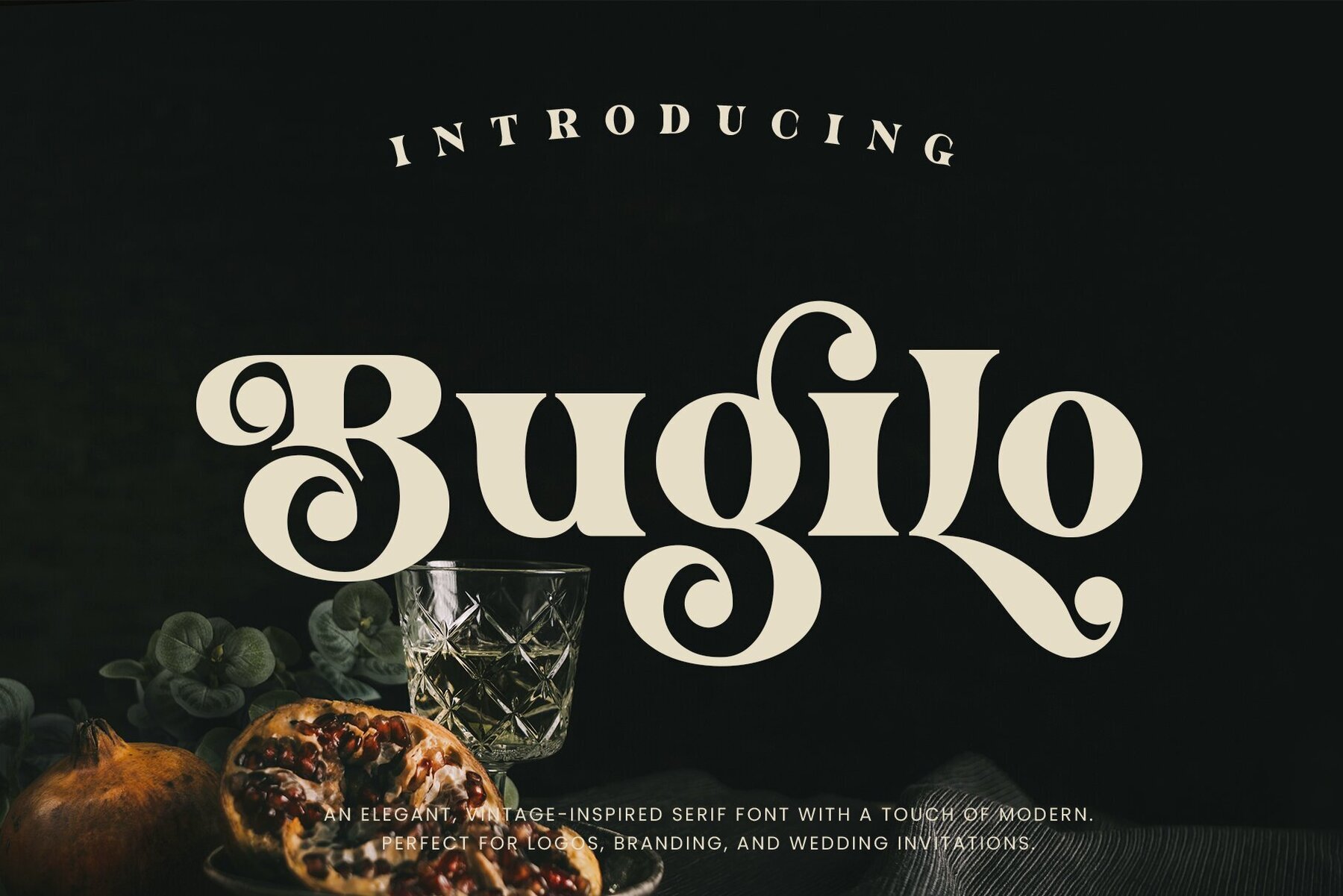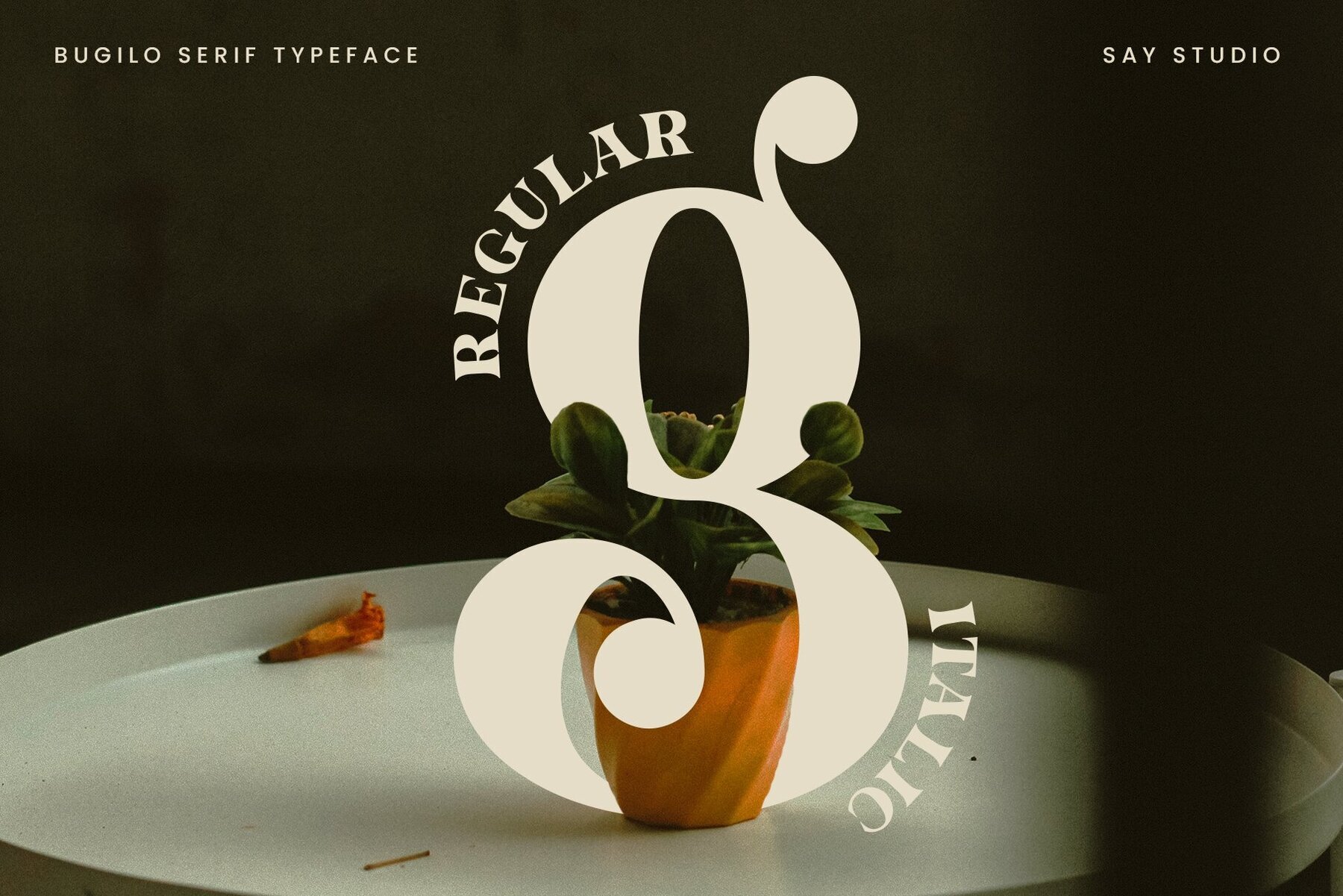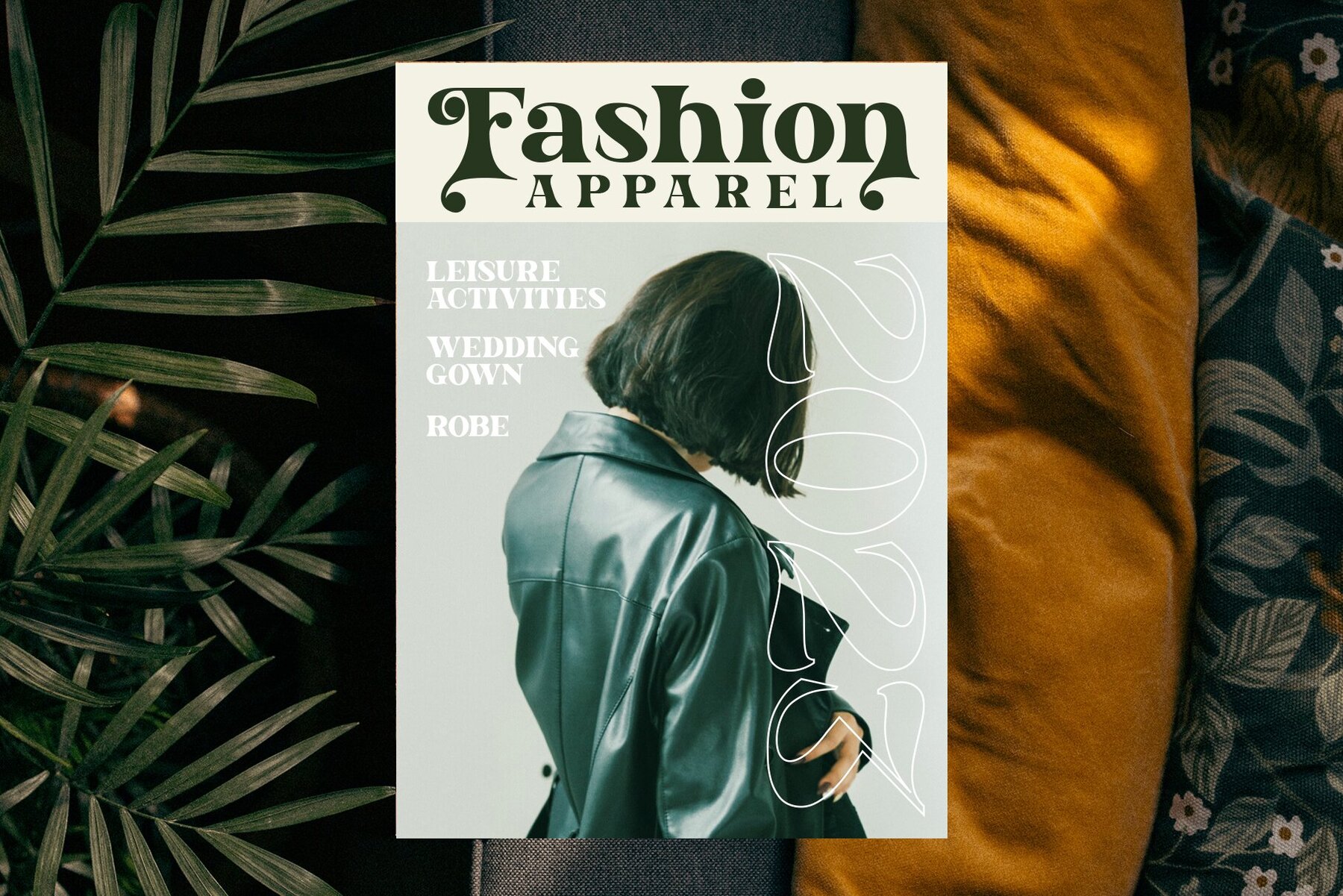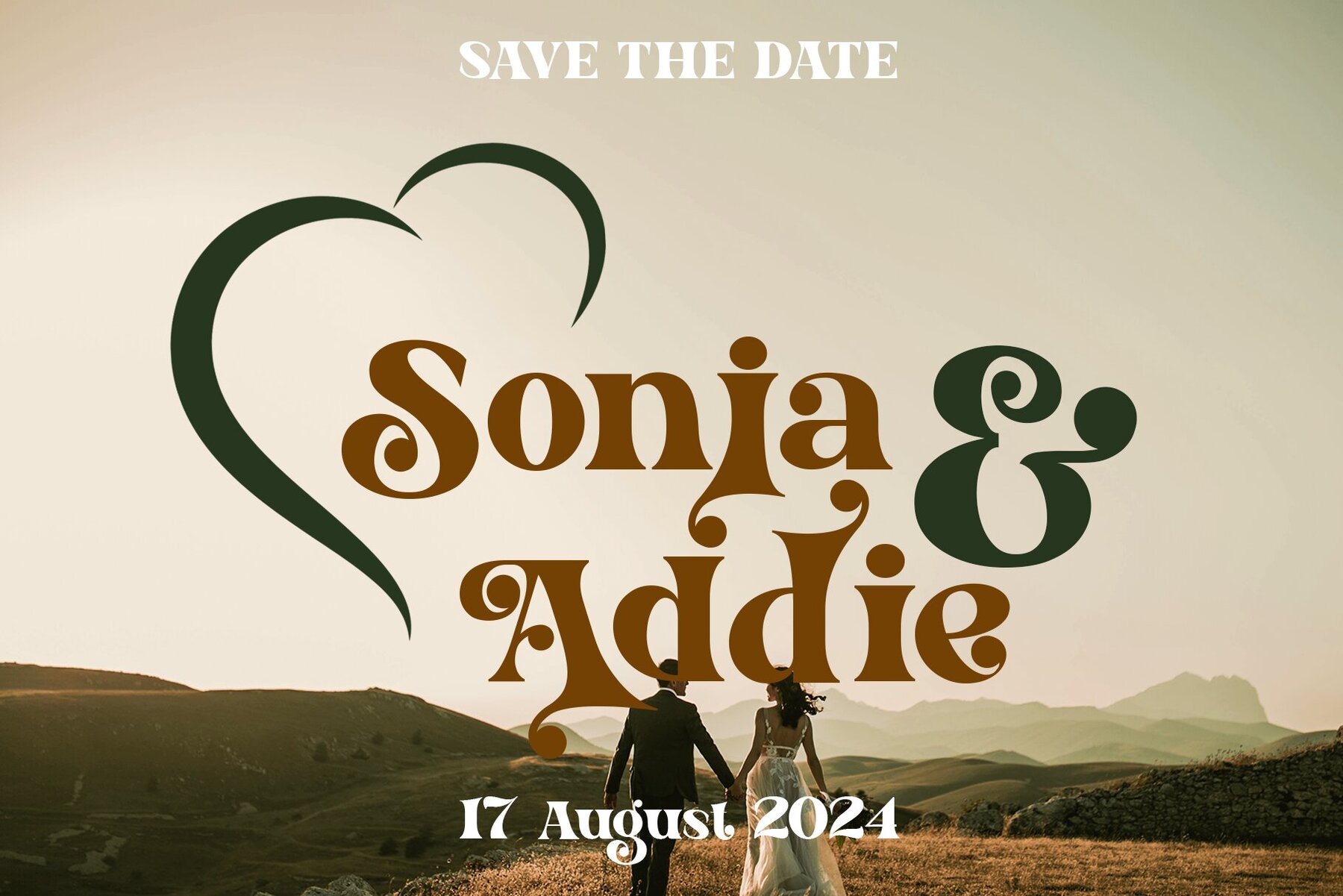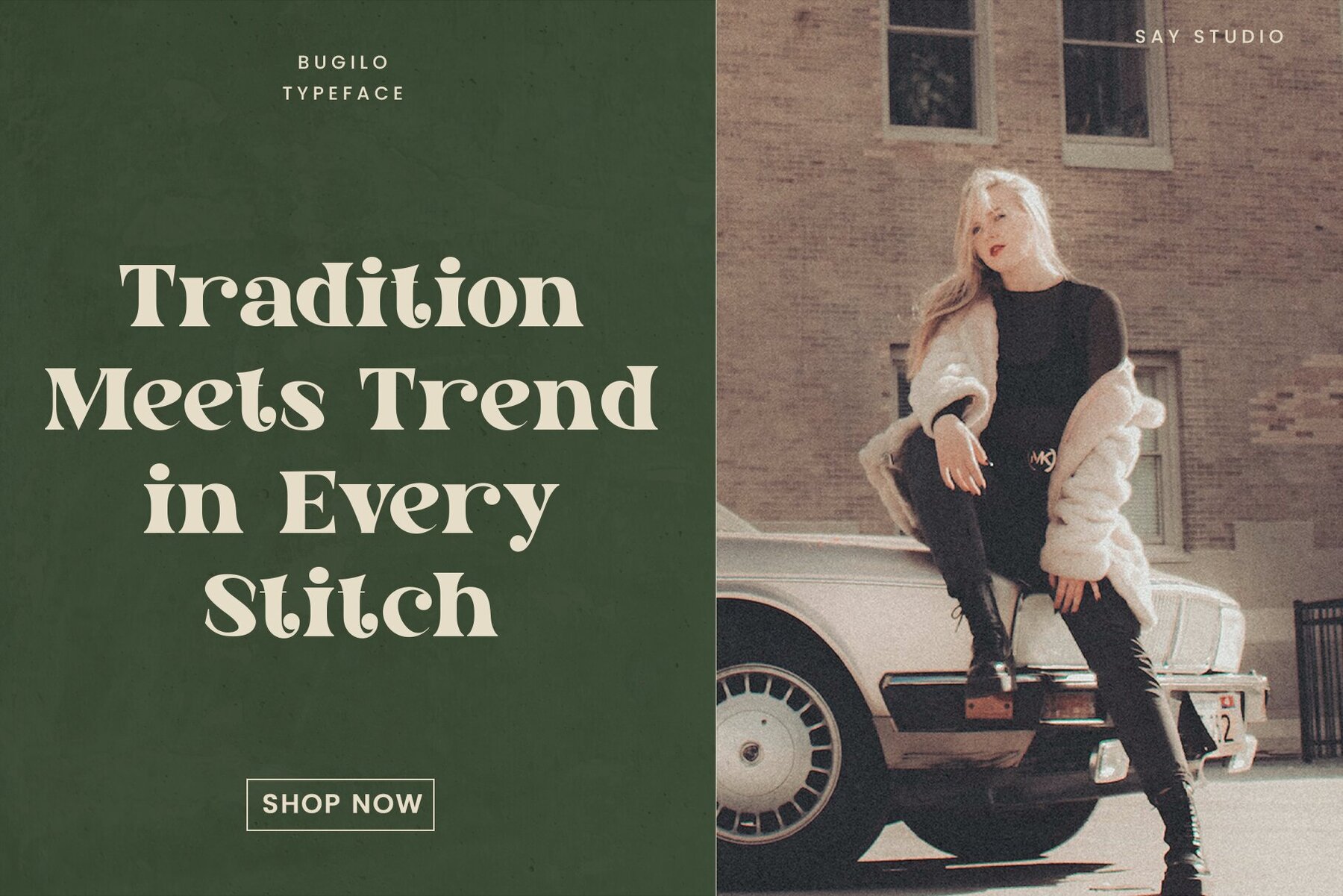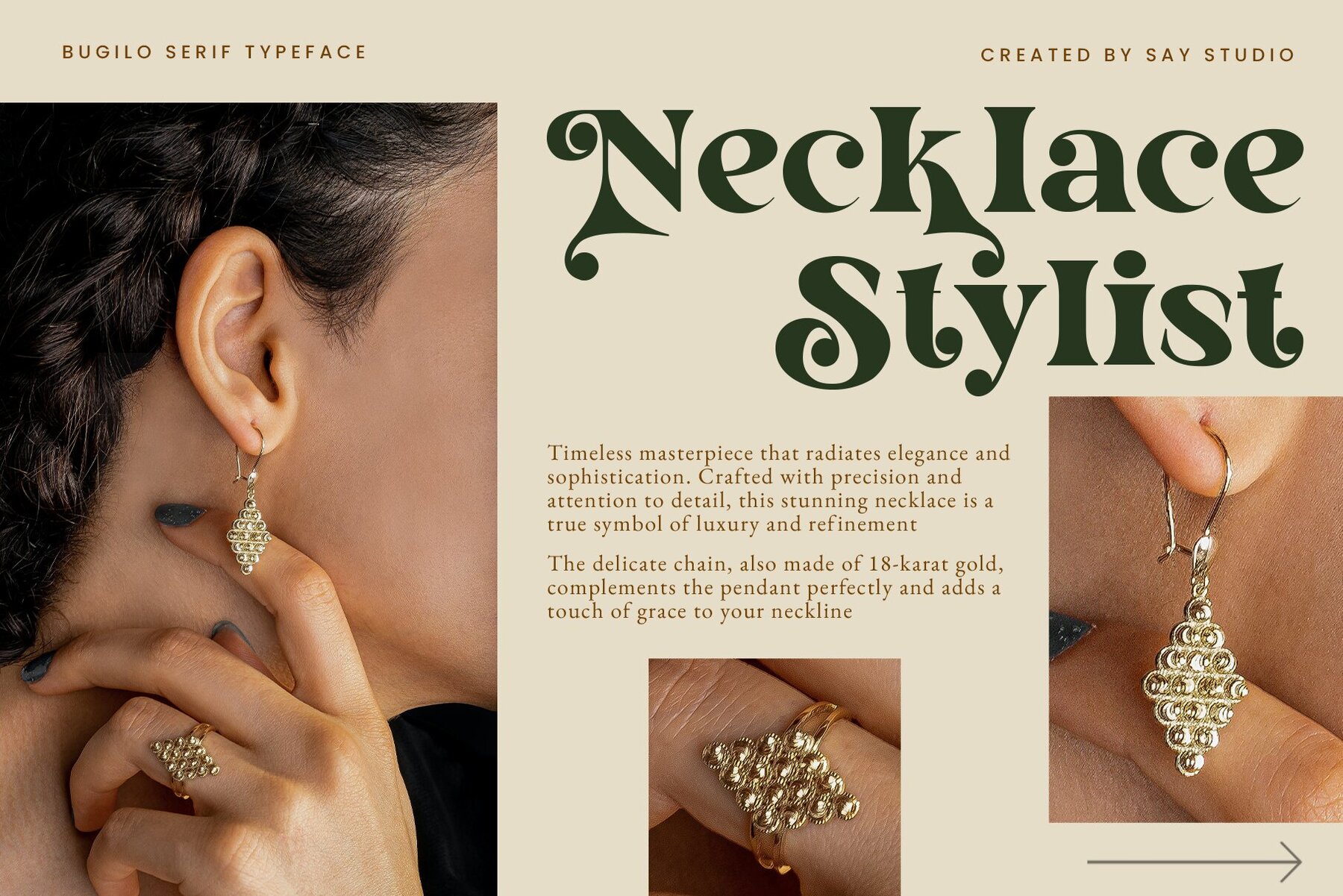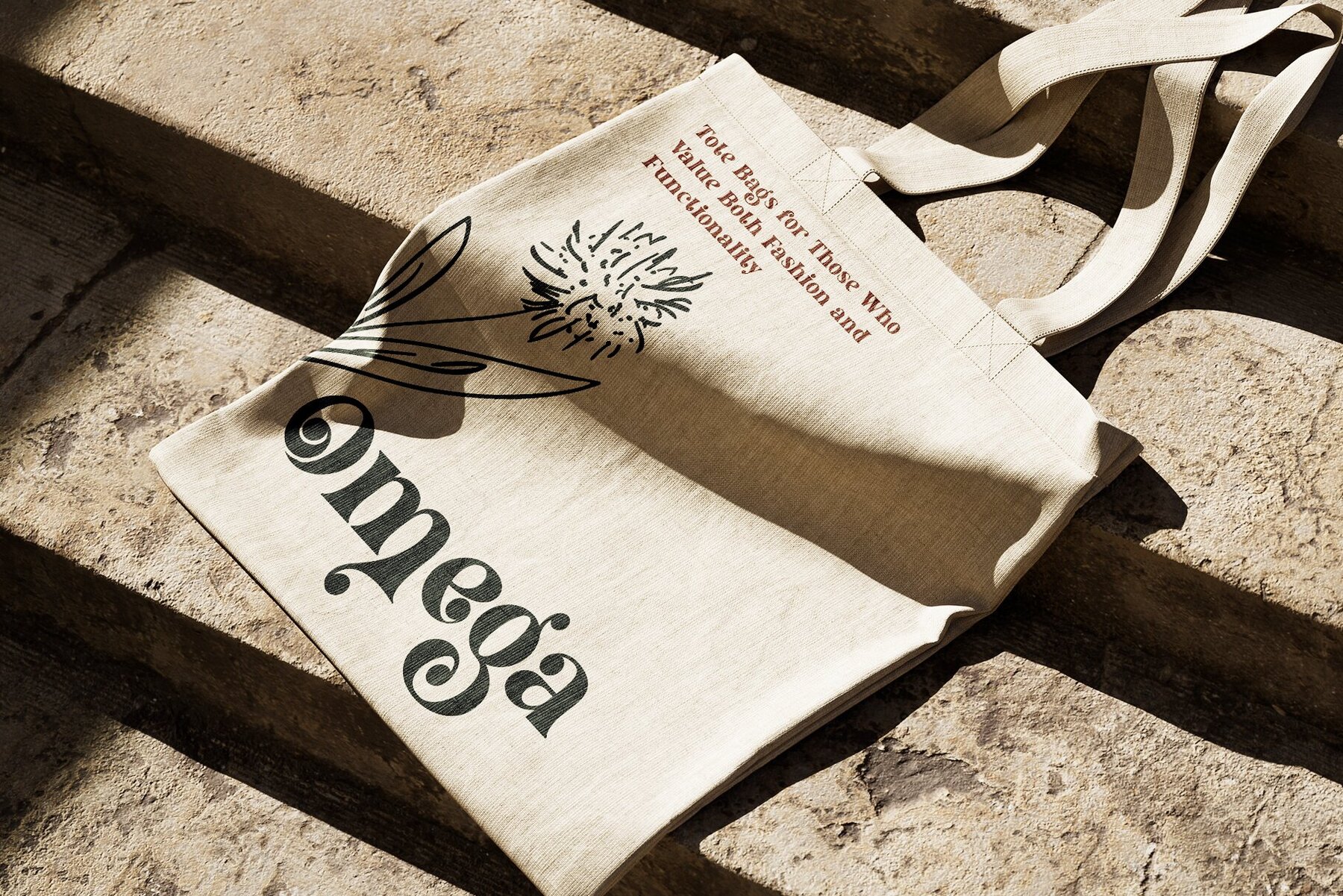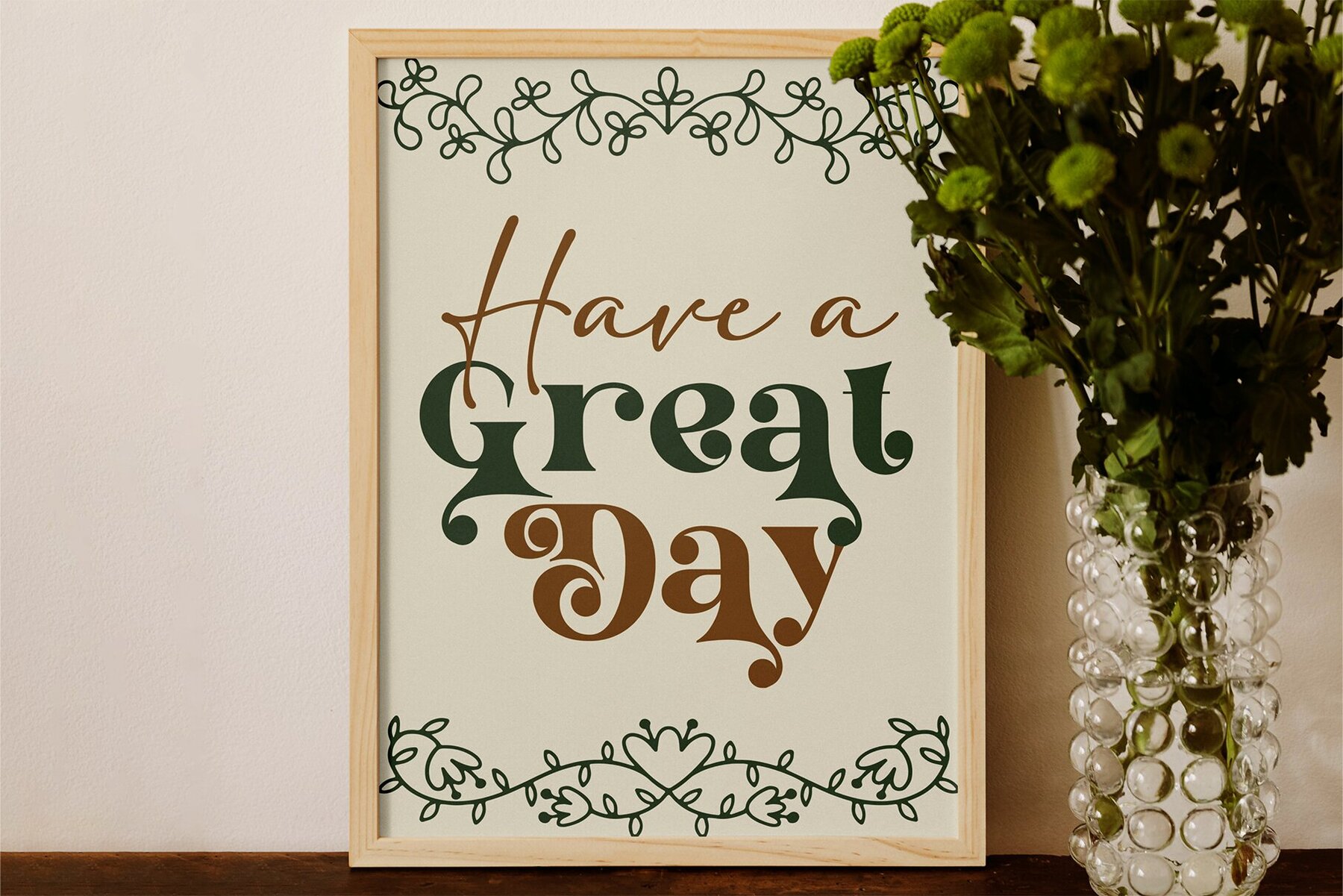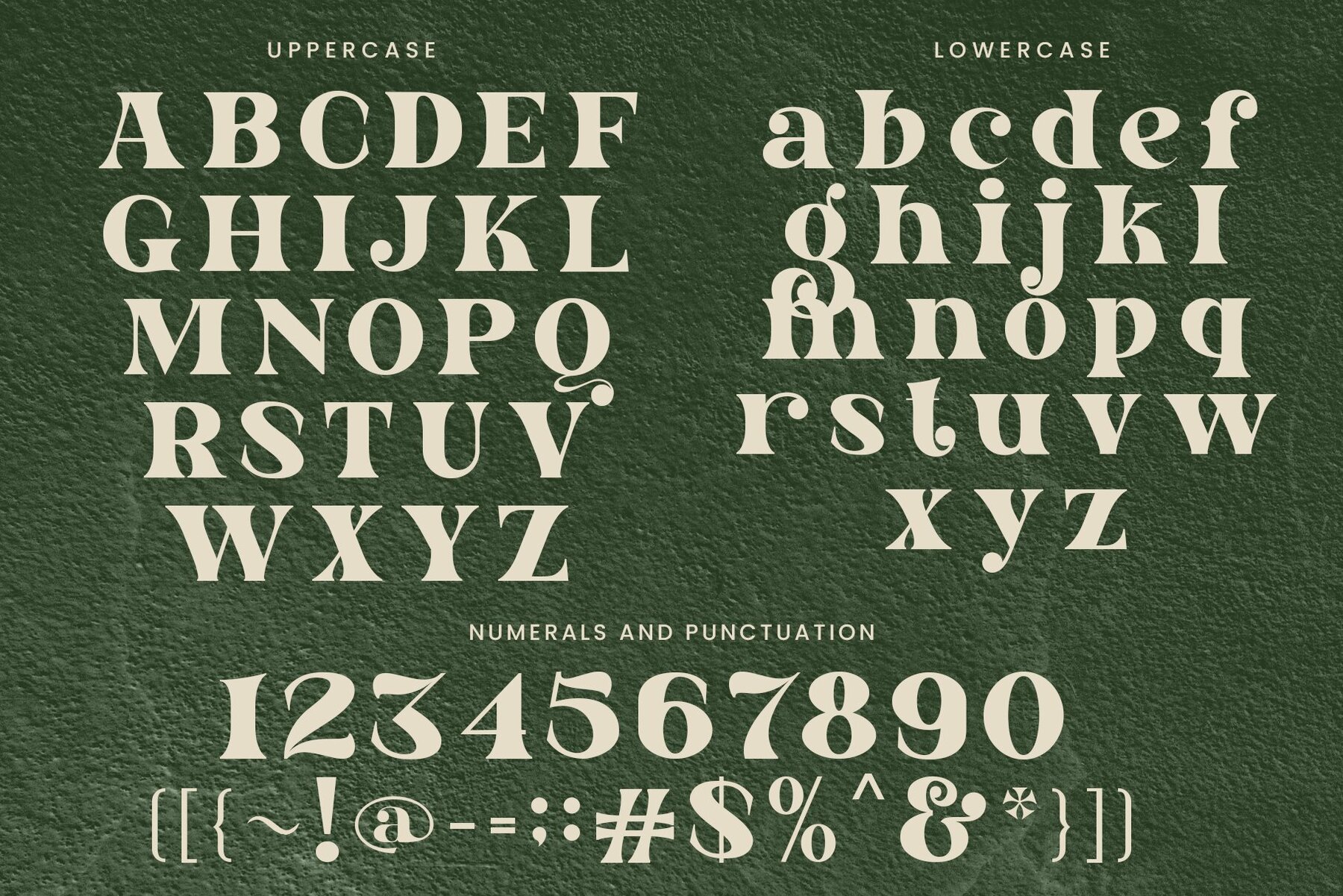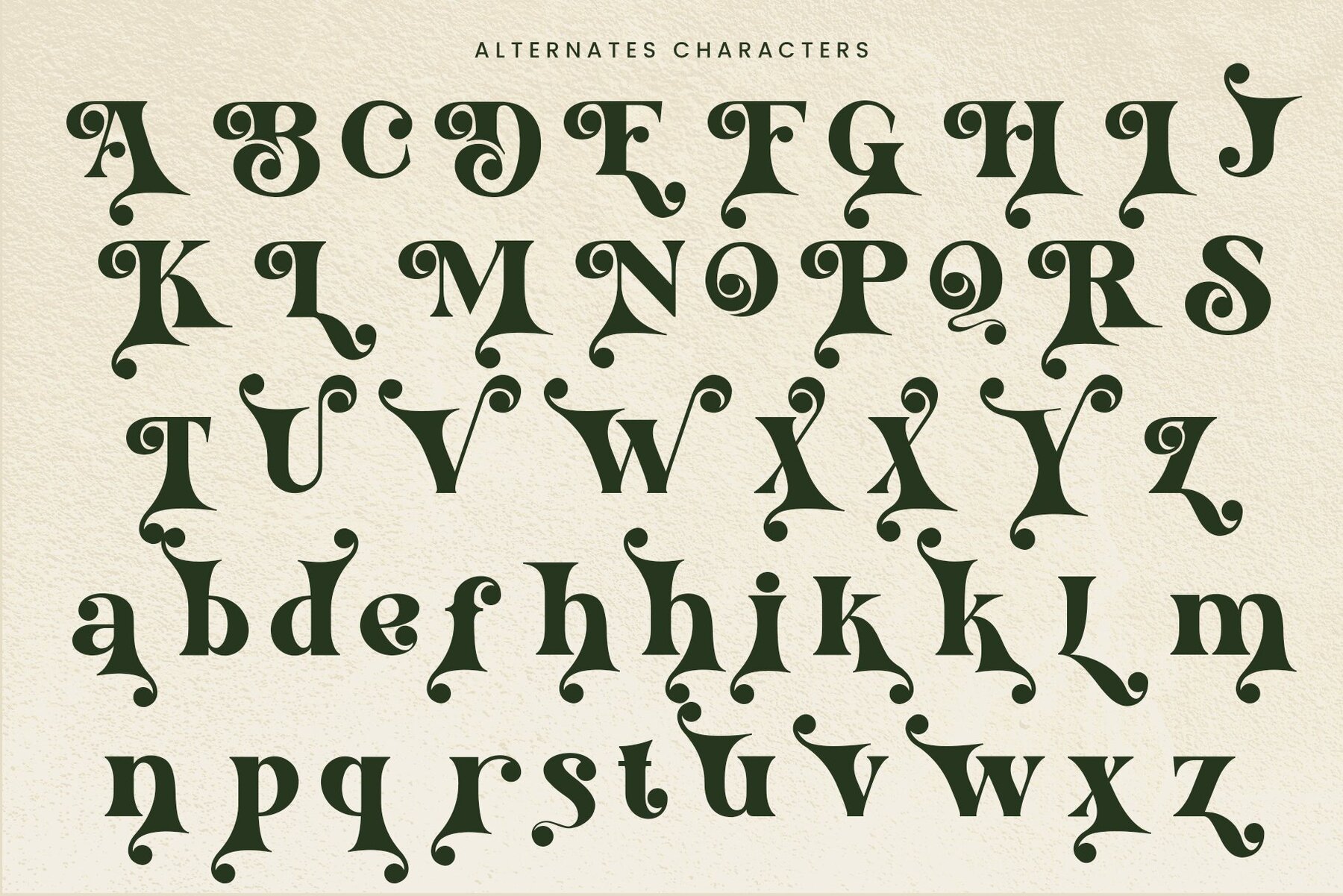
Bugilo Font
Bugilo captures a sense of playful nostalgia, offering a bold serif style that channels a distinct vintage character. This typeface brings a retro spirit to branding, editorial layouts, posters, and packaging, making your work stand out in both digital and print projects. Bugilo’s carefully crafted letterforms create visual interest without overwhelming the composition, allowing each word to carry unique personality. The font’s features support creative flexibility, including multilingual support, ligatures, alternates, and swashes. Its PUA encoding gives you seamless access to every glyph, so you can easily customize headlines, logos, or display projects with a personal touch. Whether you’re adding style to a publication or giving a modern edge to a classic design, Bugilo blends charm and versatility for design professionals seeking a statement serif.Bugilo – Modern Bold Serif with Vintage Flair